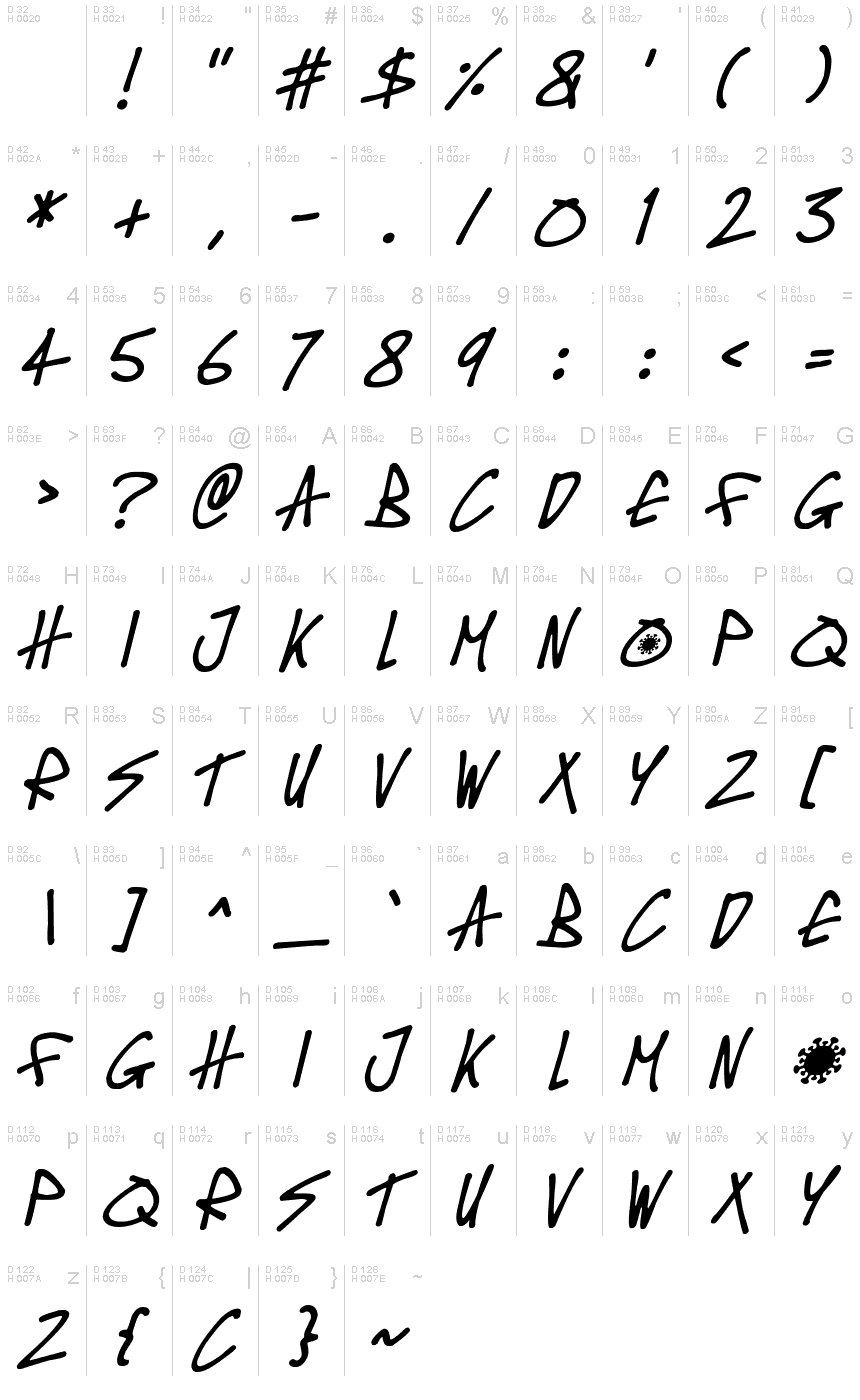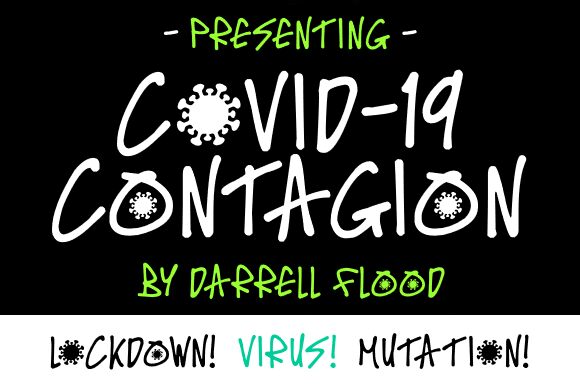
Covid-19 Contagion Italic
Covid-19 Contagion Italic, part of the Covid-19 Contagion font family designed by Hawtpixel, brings a rebellious and urban touch to your projects.
With its graffiti style and semi-light weight, this font is perfect for street art showcases, edgy fashion brands, and music festival posters. Its semi-condensed width allows it to fit in tight spaces without compromising readability. Whether you're looking to add an underground vibe or make a bold statement with your designs, Covid-19 Contagion Italic is the font that will captivate attention and leave a lasting impression.